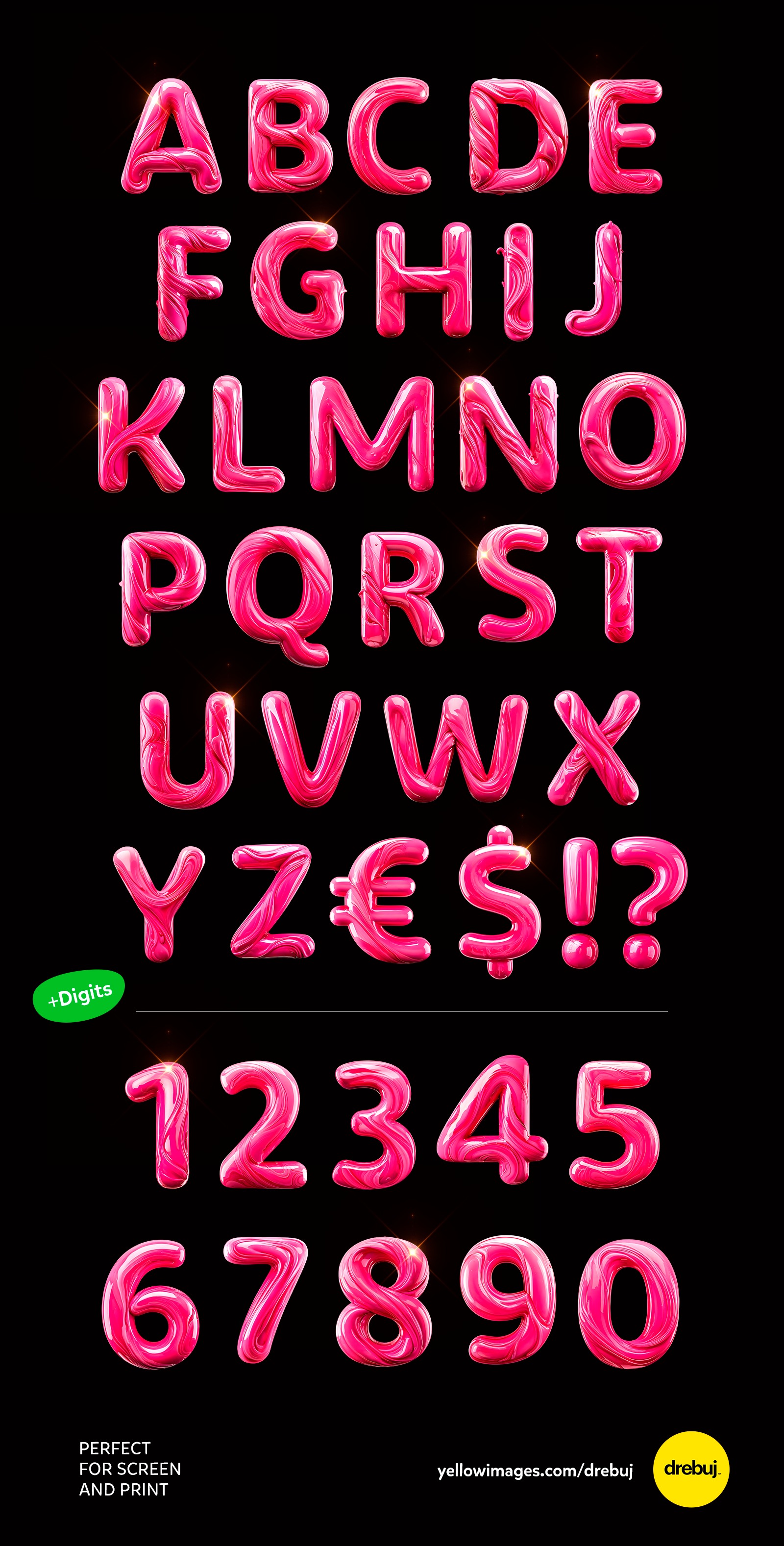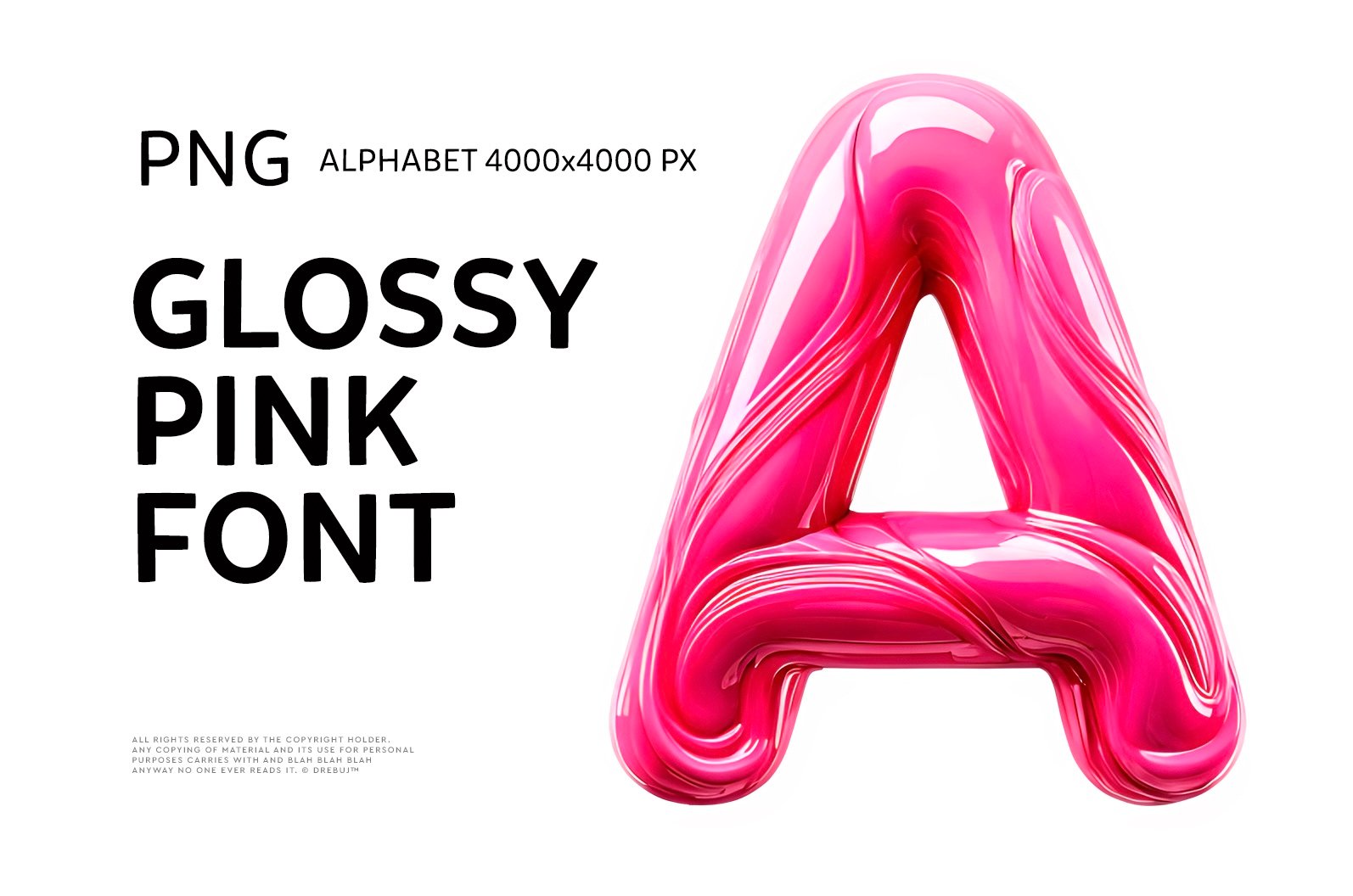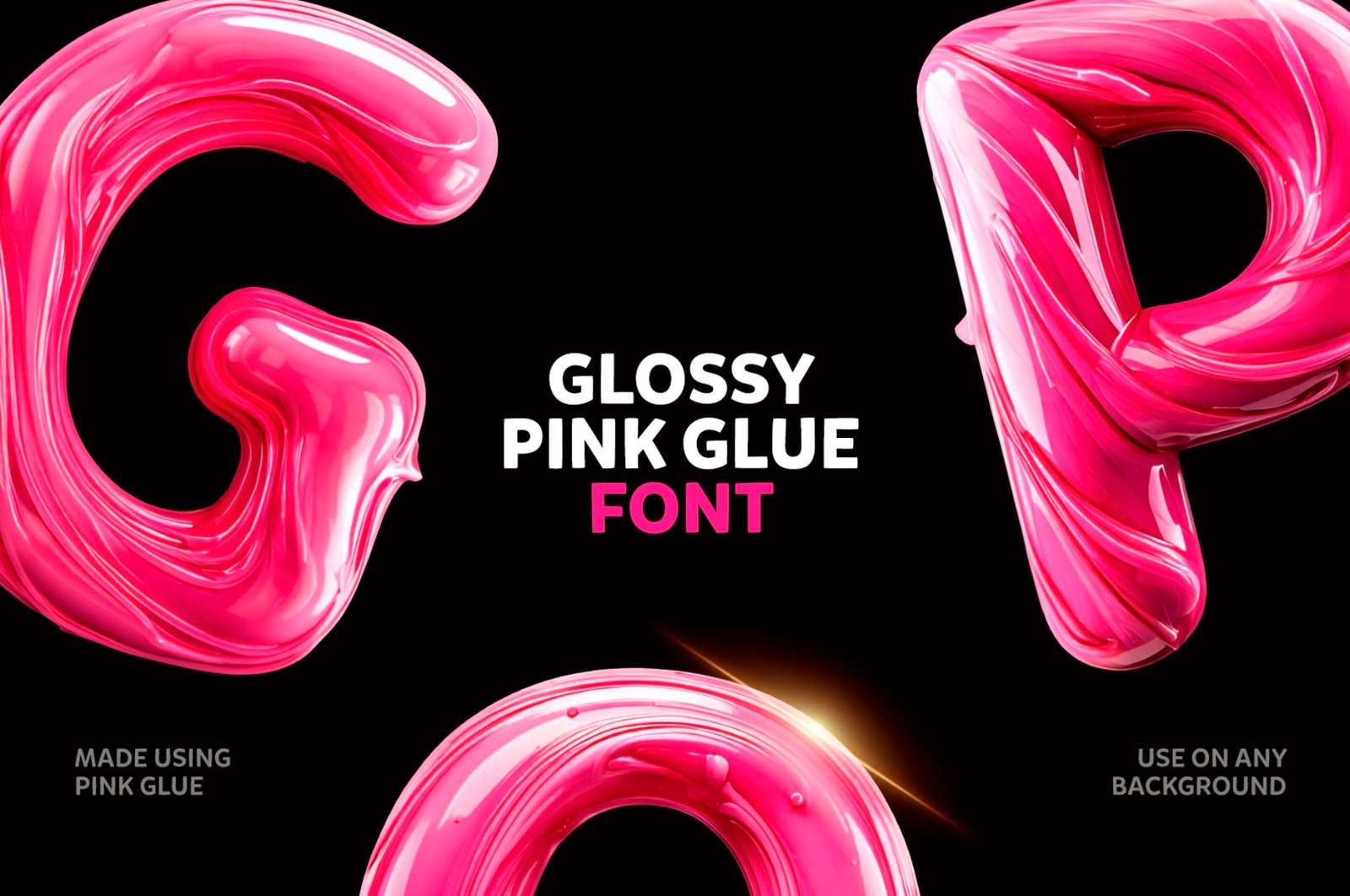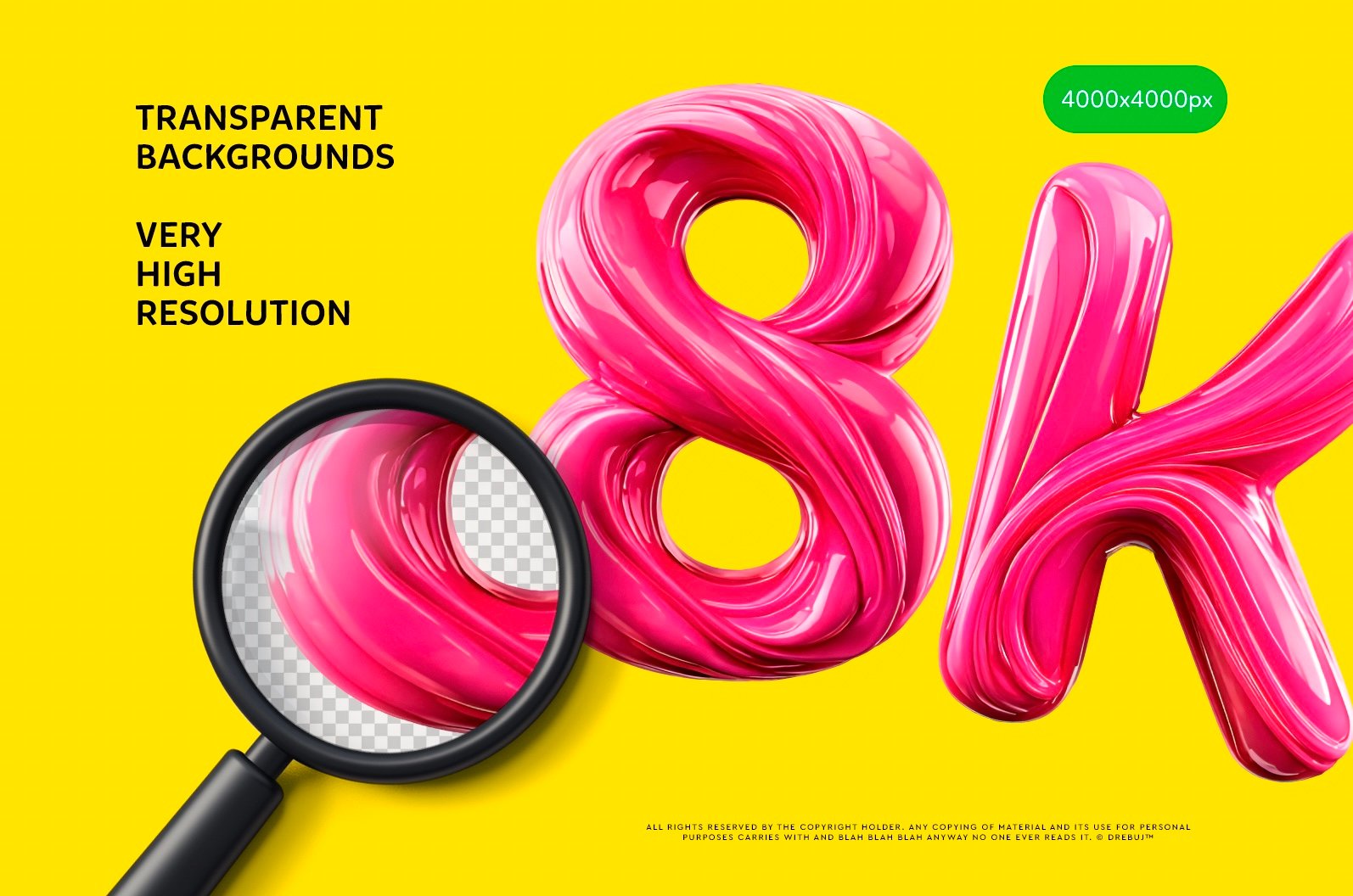
Glossy Pink Glue Font: Geometric 3D Alphabet PNG
An entire alphabet of PINK GLUE GLOSSY letters with transparent background.
THIS IS NOT A FONT. This is a very high-quality 3d PNG font of PINK GLUE GLOSSY texture letters.